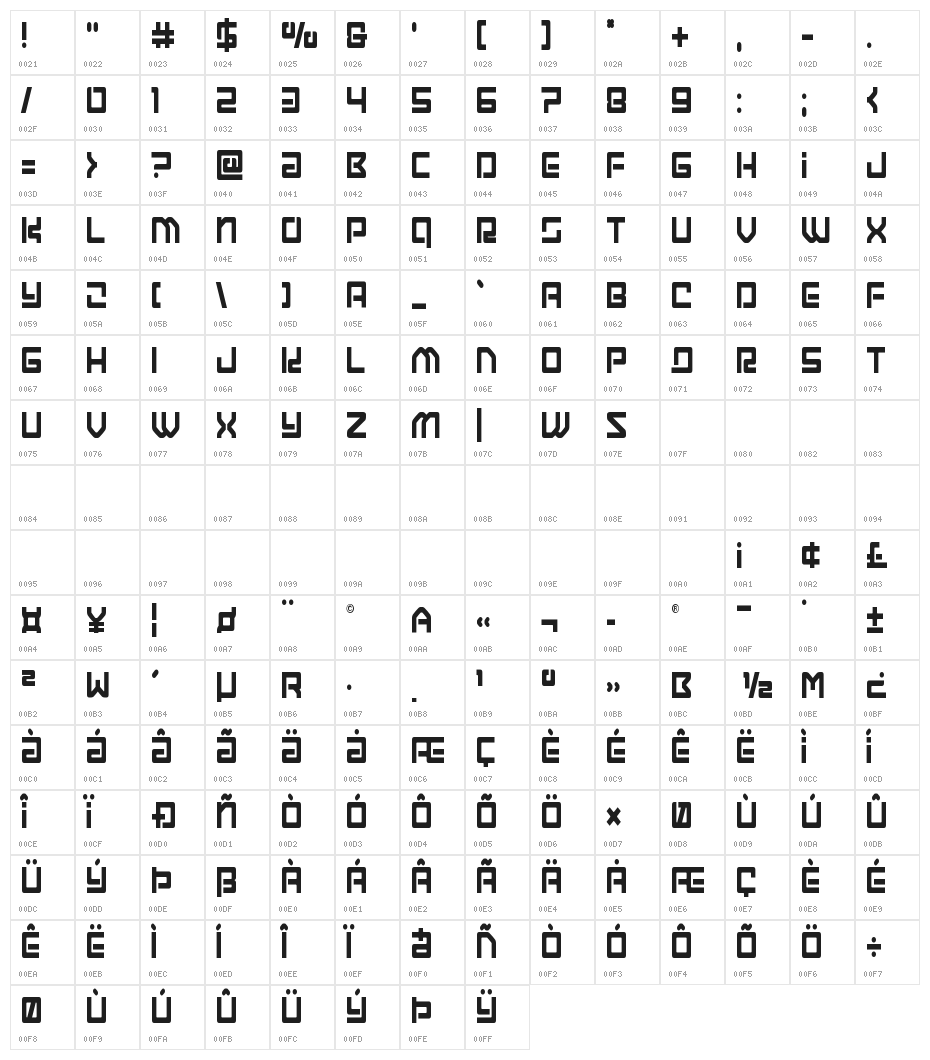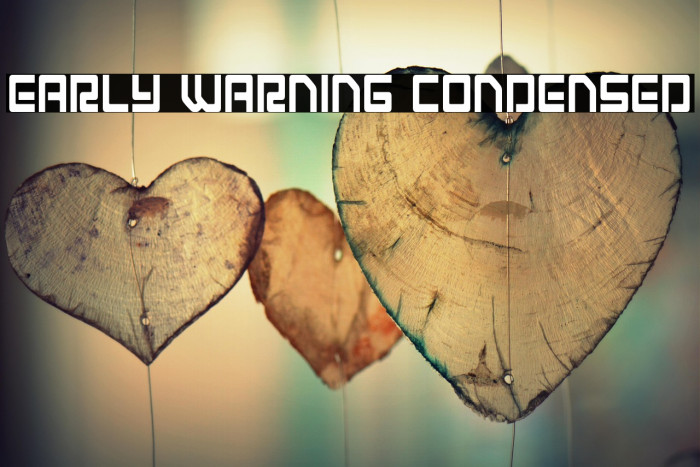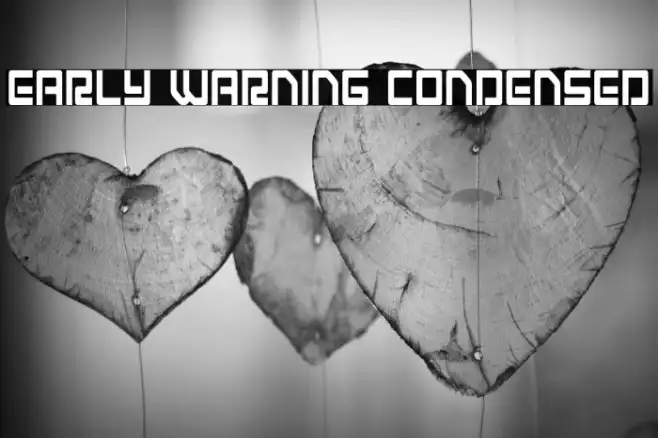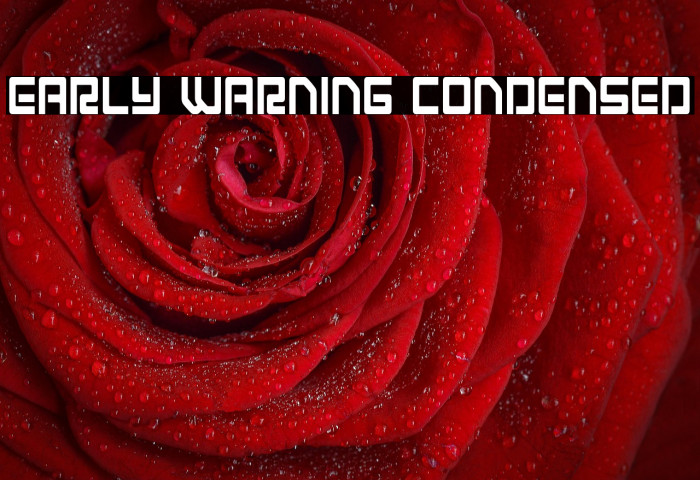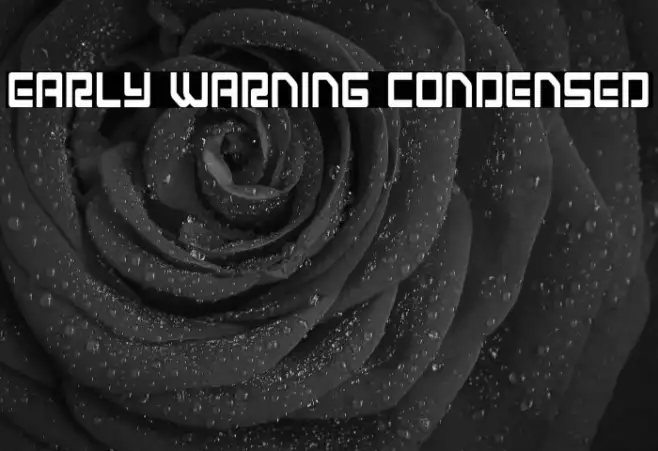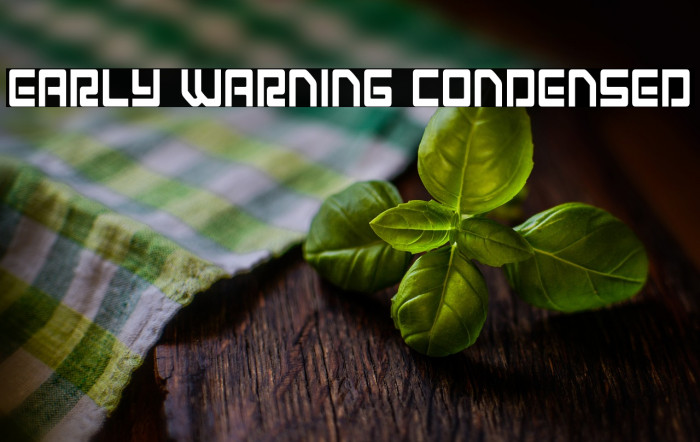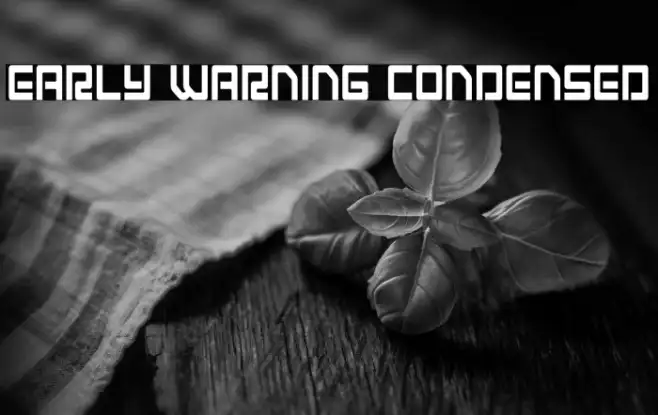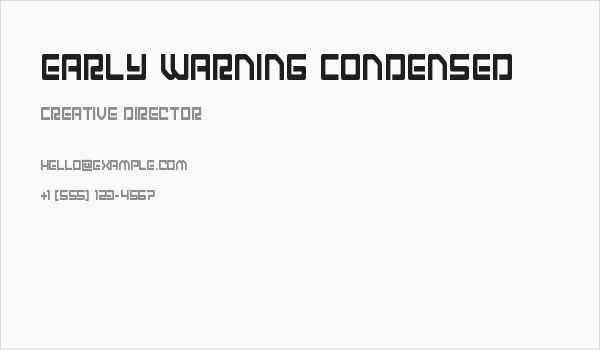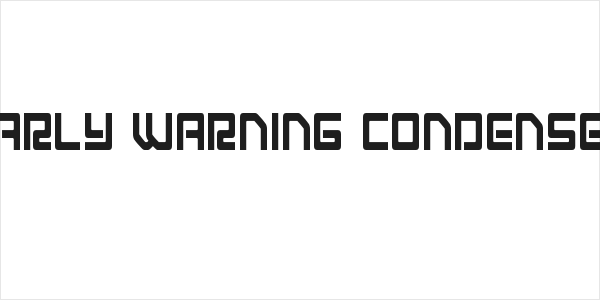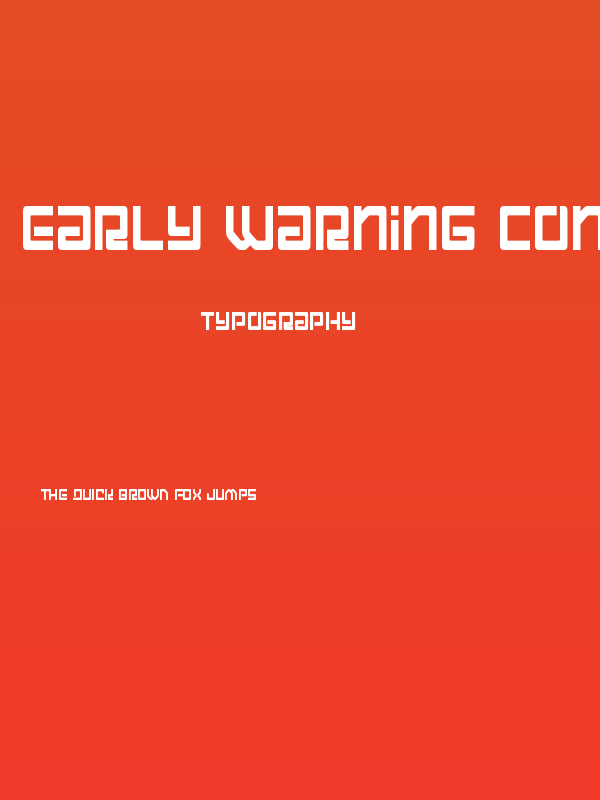
Early Warning Condensed Font
Early Warning Condensed Description
This font features a bold, geometric design with a futuristic and industrial feel. The characters are constructed with straight lines and sharp angles, giving it a modern and technical appearance. The uppercase and lowercase letters maintain a consistent height, enhancing its uniformity. The numerals and special characters follow the same design principles, ensuring a cohesive look across all glyphs. The font's condensed width allows for efficient use of space, making it ideal for headlines or areas where space is limited. Its distinct style is both eye-catching and functional, suitable for projects that require a strong visual impact.
| Proposed Projects | Ideal for technology branding, sci-fi posters, video game interfaces, and modern advertising. |